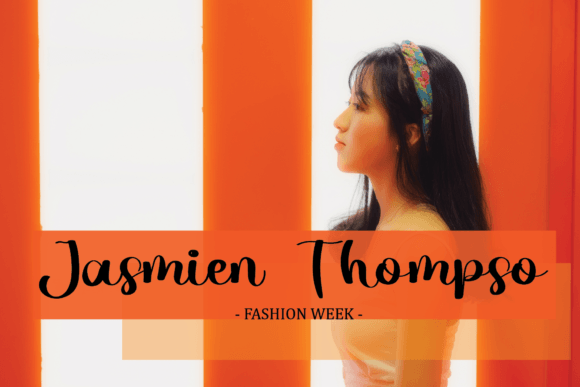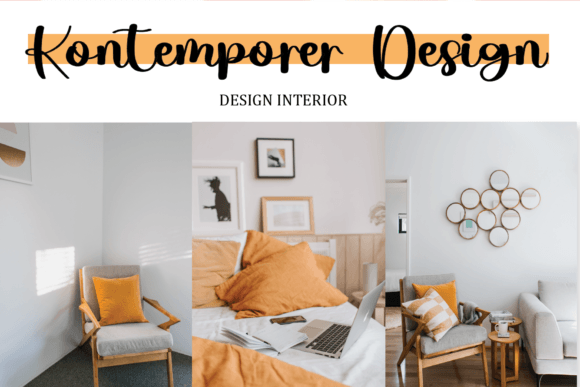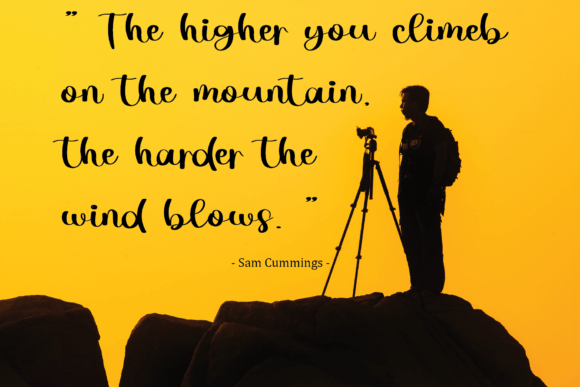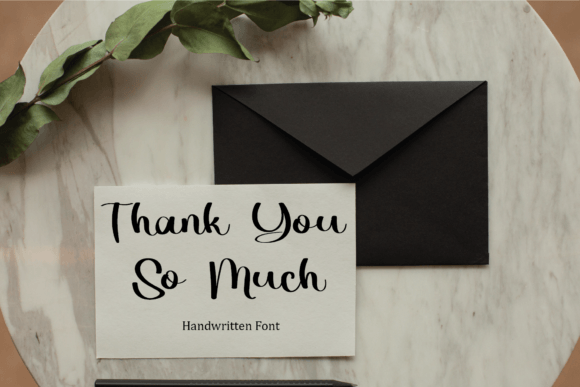
Aesthetic House Font: Elevate Your Designs with Elegance and Sophistication
In the world of design, fonts play a crucial role in conveying the tone and personality of a brand or project. For those seeking to add a touch of elegance and sophistication to their work, the Aesthetic House font is an excellent choice. This beautiful, handwritten font is perfect for designers and crafters looking to create stunning visual content that exudes modernity and refinement.
What is Aesthetic House Font?
Aesthetic House is an elegant handwritten font that boasts beautiful characters and a modern impression. Its unique and varied hand strokes, in the form of lines, fields, and stunning alternates, make it an ideal choice for a wide range of design applications. From wedding invitations and thank you cards to business cards, logos, and advertisements, this font is sure to elevate your designs to the next level.
Key Features of Aesthetic House Font
• Elegant Handwritten Style: Aesthetic House font features a beautiful, handwritten style that adds a personal touch to any design.
• Modern Impression: The font’s modern impression makes it perfect for contemporary designs that require a touch of sophistication.
• Varied Hand Strokes: The font’s varied hand strokes, in the form of lines, fields, and stunning alternates, add visual interest and depth to any design.
• High Versatility: Aesthetic House font can be used for a wide range of design applications, including wedding invitations, thank you cards, greeting cards, business cards, logos, and advertisements.
Aesthetic House font is an excellent choice for designers and crafters who want to add a touch of elegance and sophistication to their work. Whether you’re creating visual content for a client or working on a personal project, this font is sure to impress. Its unique and varied hand strokes make it perfect for designs that require a personal touch, such as:
• Thank you cards and greeting cards
• Business cards and logos
• Advertisements and marketing materials
• Quote and inspirational designs
Why Choose Aesthetic House Font?
With so many fonts available, why choose Aesthetic House font? Here are just a few reasons:
• Unique and Elegant Style: Aesthetic House font features a unique and elegant style that sets it apart from other fonts.
• High Quality: The font is designed with high-quality craftsmanship, ensuring that it looks stunning in any design.
• Versatile: Aesthetic House font can be used for a wide range of design applications, making it a valuable addition to any designer’s toolkit.
• Easy to Read: The font is easy to read, making it perfect for designs that require a clear and concise message.
Tips for Using Aesthetic House Font
To get the most out of Aesthetic House font, here are a few tips:
• Use it for Headings and Titles: Aesthetic House font is perfect for headings and titles, where its elegant style can shine.
• Pair it with Other Fonts: Experiment with pairing Aesthetic House font with other fonts to create a unique and visually appealing design.
• Use it for Branding and Marketing Materials: Aesthetic House font is perfect for branding and marketing materials, such as business cards, logos, and advertisements.
In conclusion, Aesthetic House font is an excellent choice for designers and crafters looking to add a touch of elegance and sophistication to their work. Its unique and varied hand strokes, modern impression, and high versatility make it perfect for a wide range of design applications. Whether you’re creating visual content for a client or working on a personal project, Aesthetic House font is sure to elevate your designs to the next level.